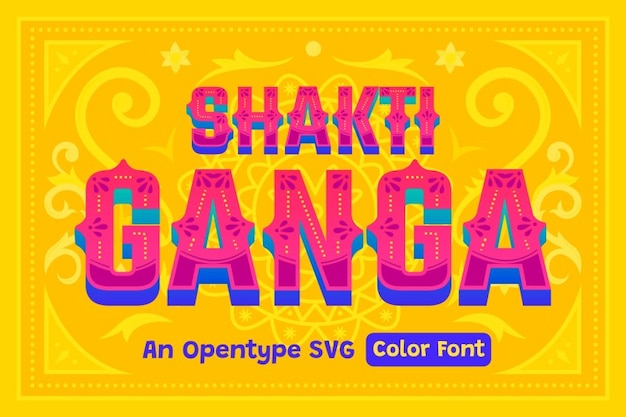
Shakti Ganga Font
Shakti Ganga is a vibrant font inspired by the rich heritage of India, reflecting the elegance of Hindi script with a festive twist. Perfect for Diwali themes, it blends traditional Indian motifs with contemporary style, capturing the spirit of celebration. Ideal for cultural projects, invitations, and decor, Shakti Ganga brings warmth and authenticity to any design.